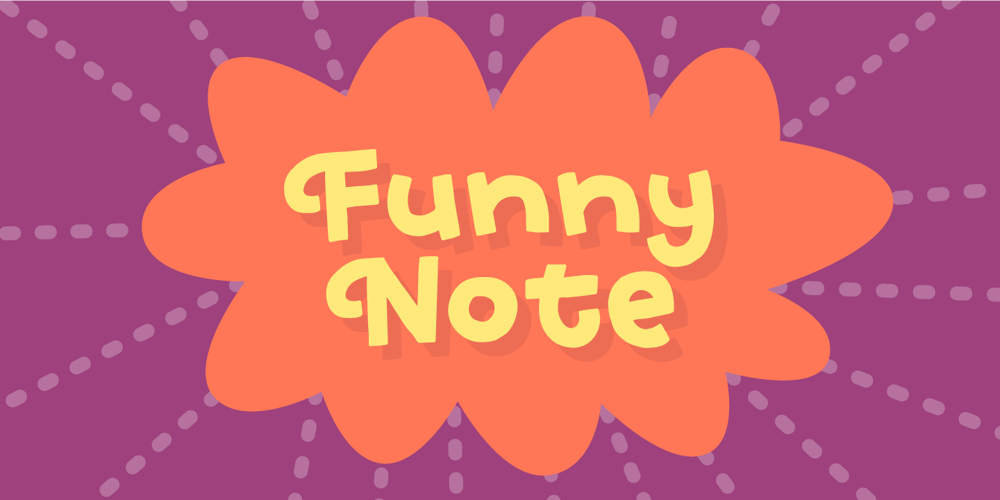
Funny Note Font Family was designed by Jakob Fischer and published by PizzaDude.dk. Funny Note contains 2 styles and family package options. Funny Notes is based on a recipe for a vanilla cake. And how is that? The reason is that Funny Notes is full of calories, vanilla and a spoonful of comic soft crumb!